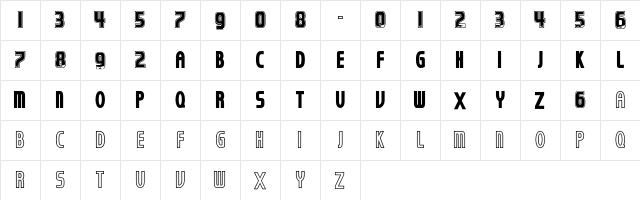
TheFootballLeague Regular
Design Context for TheFootballLeague Typeface
TheFootballLeague is a composed and adaptable typeface that performs quietly and consistently across a wide range of design contexts.